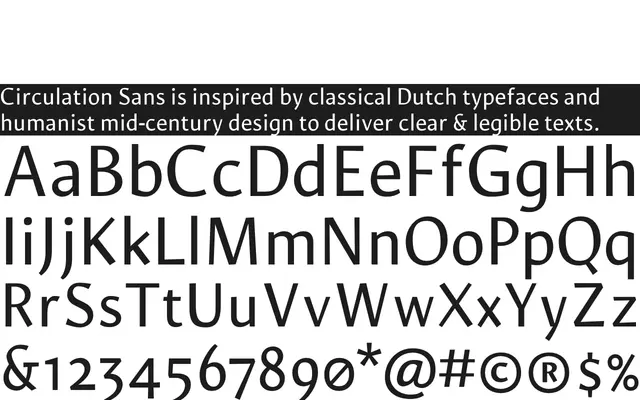
Circulation Sans
A humanist sans rooted in Dutch text face traditions, optimised for long-form reading at small sizes with open apertures and a high x-height.
Drawing on classical Dutch typefaces and humanist mid-century design, it brings calligraphic detail to a rational, sober structure suited to editorial, academic and communications work. Open apertures and a generous x-height keep it legible at 6pt to 12pt, while the forms hold up well in headlines and display settings. The single-weight release covers 480 glyphs with support for over 200 Latin-script languages and a full suite of OpenType features including tabular old-style figures, fractions, contextual ligatures and case-responsive diacritics.
The typeface draws from classical Dutch text faces and humanist mid-century design, with calligraphic detail, open apertures and a high x-height — hallmarks of the humanist sans tradition.